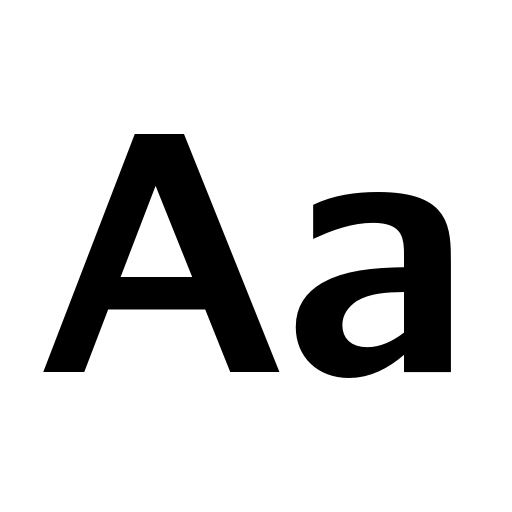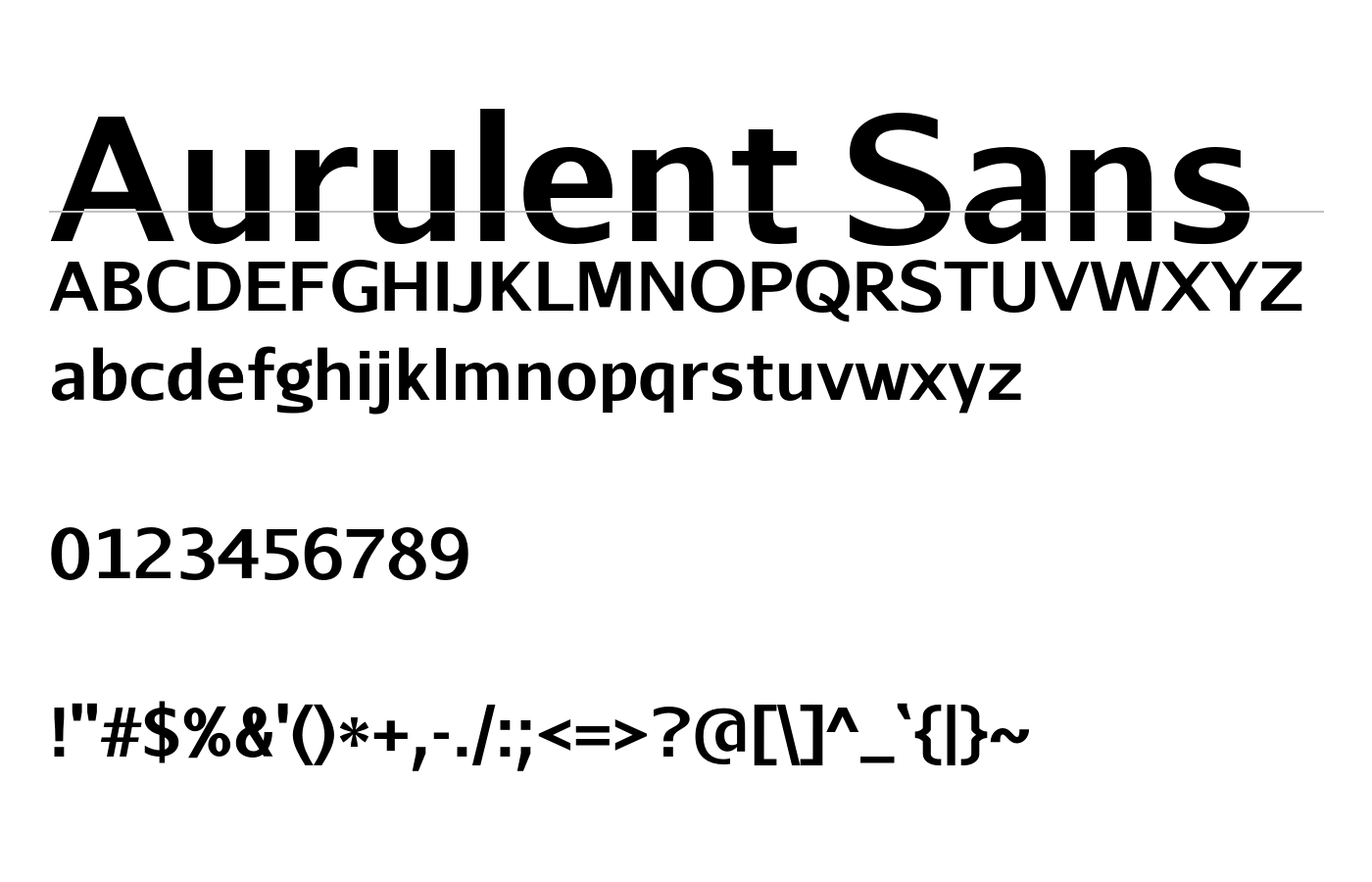
Aurulent Sans is a clean, modern sans serif font distinguished by its balanced proportions, medium weight, and clear legibility. Its open, rounded letterforms and consistent stroke widths give it a friendly yet professional feel, making it ideal for branding, editorial design, and digital interfaces where readability and a contemporary look are key. This versatile typeface works well in both headlines and body text, offering a polished and approachable aesthetic for a wide range of design projects.
Aurulent Sans Font
About Aurulent Sans Font